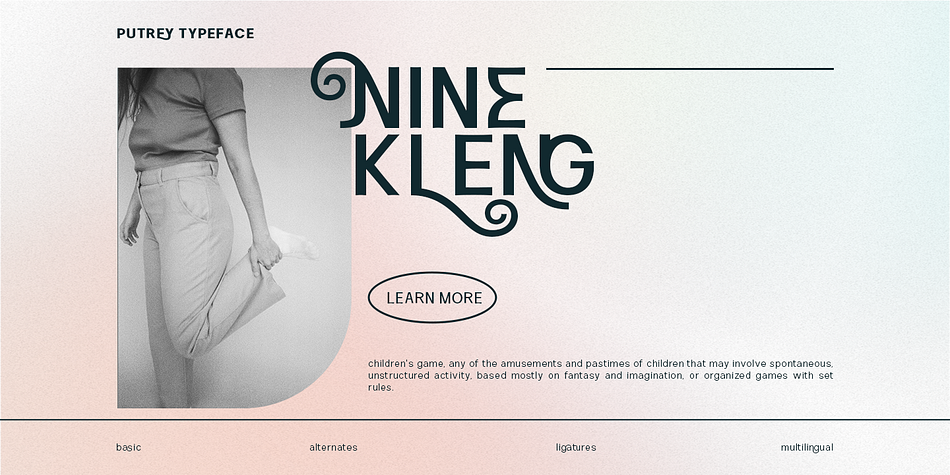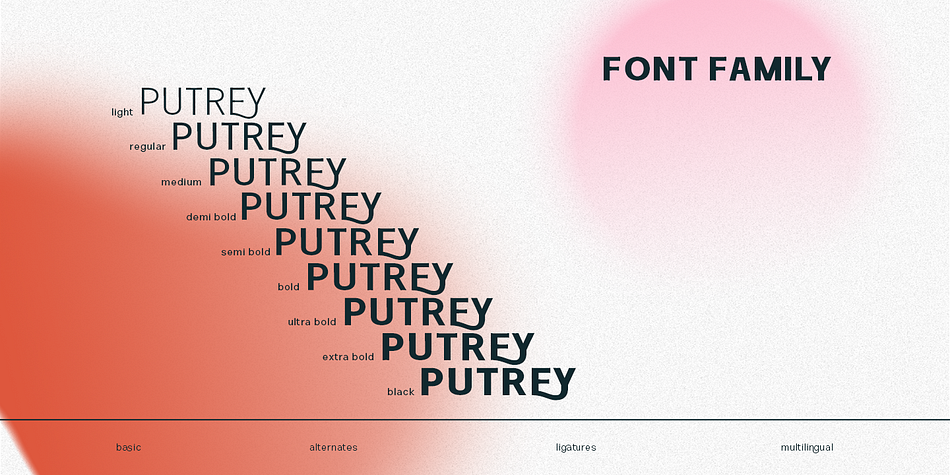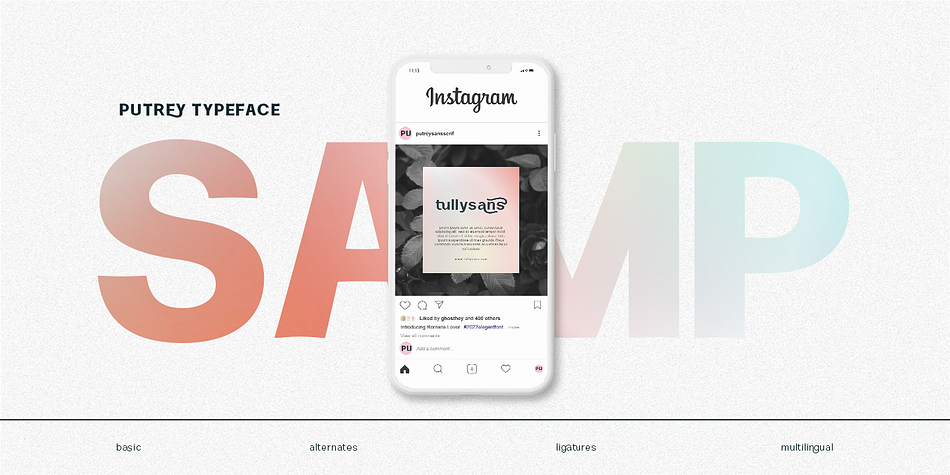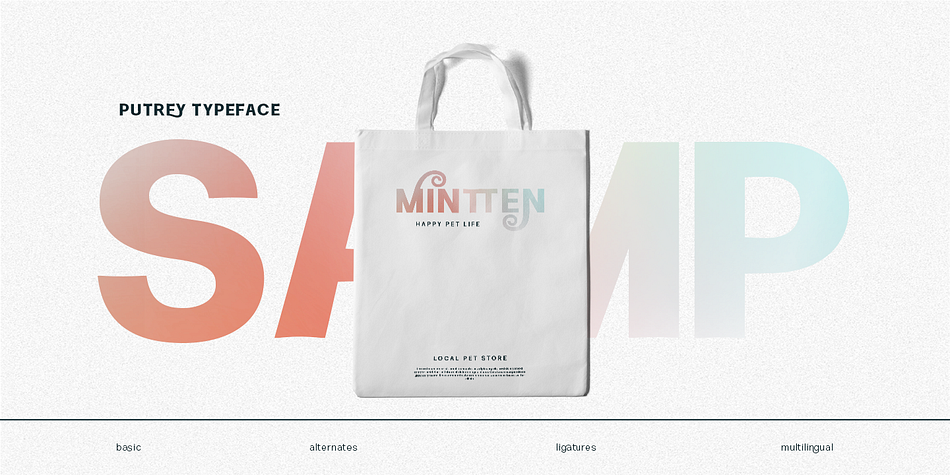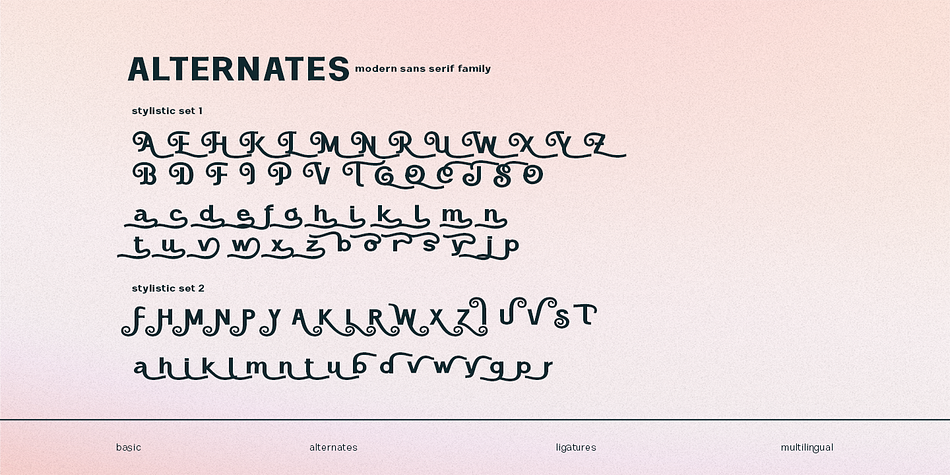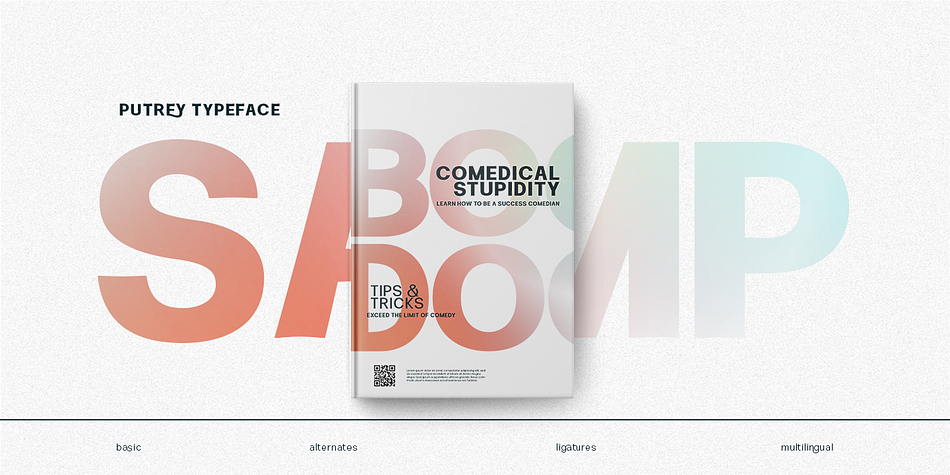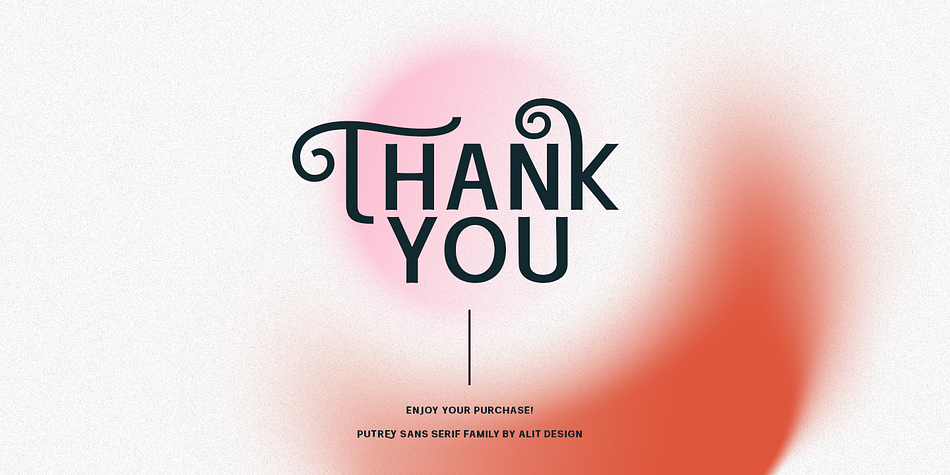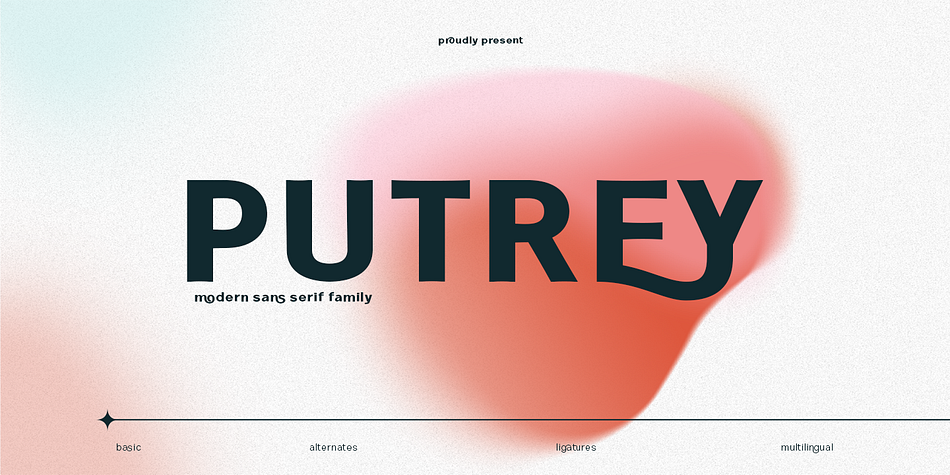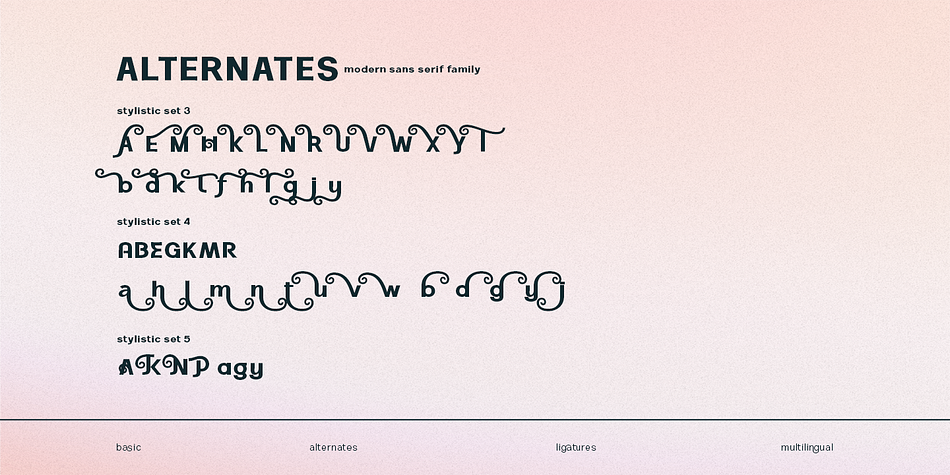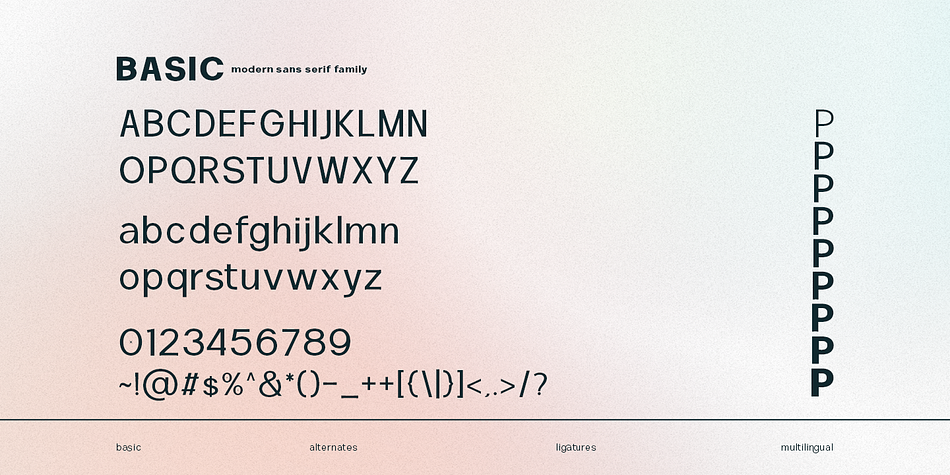
Putrey
Designed by Alit Suarnegara, Putrey is a sans serif font family. This typeface has nine styles and was published by Alit Design.
Introducing PUTREY Typeface
PUTREY font is designed with a modern concept that is simple and dynamic. The sans serif style adopted by the PUTRAY font is a 2022 style font, has a unique swash alternative, has a large selection of ligatures. In addition.
Sans Serif typefaces such as “PUTREY typeface” are very easy to apply to any design, especially those with an elegant and smooth concept, besides that this font is very easy to use both in design and non-design programs because everything changes and glyphs are supported by Unicode (PUA).
The PUTREY typeface contains 837 glyphs with many unique and interesting alternative options. Plus, there’s a cool sans serif font family for header and description text from light to black. In the poster preview all the letters are in the PUTREY typeface.